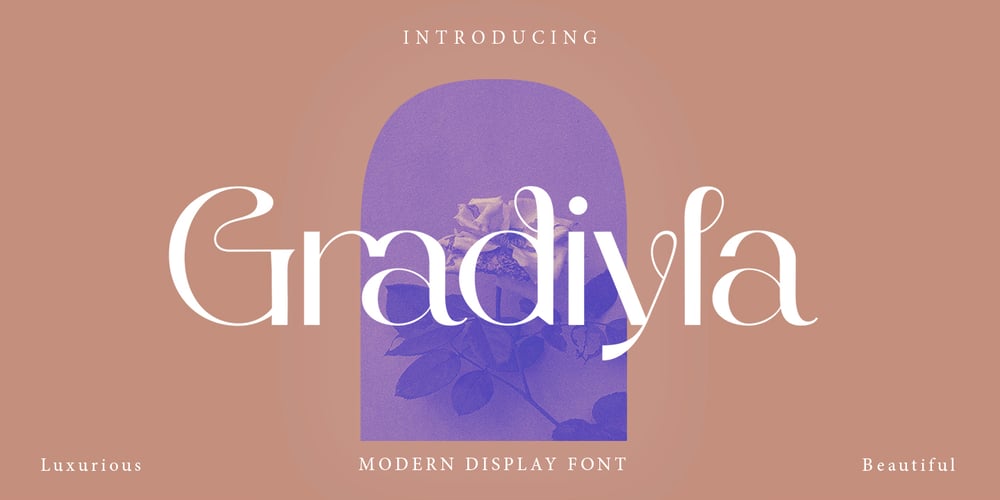
Gradiyla Font Family was designed by Ahmad Budi Santosa and published by Ahmad Type. Gradiyla contains 1 styles and family package options. Gradiyla is a luxurious display serif font with unique character by combining geometric shapes with organic curvy details. It is a unique typeface for your individual personality. Inspired by old-style serif and contemporary serif fonts. The extreme contrast between thick and thin strokes gives a harmonic and stylish look. Elegant and sensuality didone serif enhanced by ligatures. Perfect for a wide range of uses. From greeting cards to magazines, wedding invitations, logos to websites, etc.This font is PUA encoded which means you can access all of the amazing glyphs and ligatures with ease!